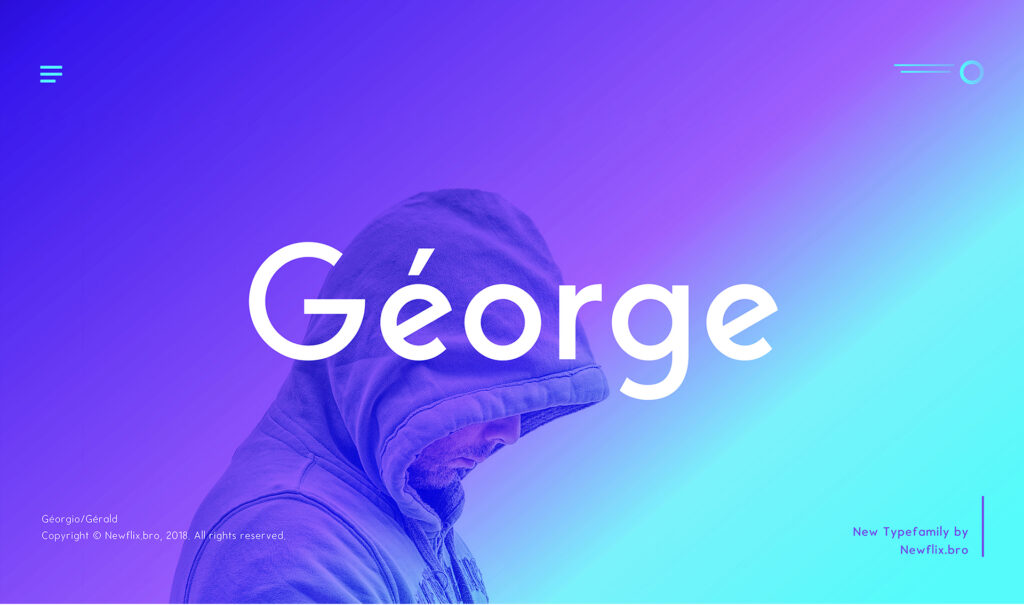
Introducing George Font: The Epitome of Elegance and Modernity
In the realm of typography, a font can make or break the visual appeal of a design. With the plethora of fonts available, it can be daunting to find the perfect one that exudes elegance, sophistication, and modernity. However, look no further than George Font, a stunning sans serif font family that is sure to elevate your designs to new heights.
What is George Font?
George Font is an elegant and contemporary sans serif font family comprising six fonts. Designed with clean and stylized modern geometry, George boasts a harmonious appearance that is perfect for both texts and headlines. Its sleek lines, precise curves, and balanced proportions make it an ideal choice for designers seeking a font that embodies sophistication and poise.
Key Features of George Font
- Contemporary Design: George Font features a modern sans serif design that is perfect for designs that require a fresh and stylish look.
- Clean and Stylized Geometry: The font’s clean lines, precise curves, and balanced proportions create a harmonious appearance that is pleasing to the eye.
- 6 Font Variations: George Font comes in six different font variations, providing designers with a range of options to suit their design needs.
- Elegant and Sophisticated: The font’s elegant and sophisticated design makes it perfect for high-end designs, such as luxury brands, magazines, and editorial designs.
The Design Philosophy Behind George Font
The design of George Font is rooted in the principles of modern geometry. The font’s creator aimed to craft a font that would embody the essence of modernity while exuding elegance and sophistication. The result is a font that is both visually striking and highly legible.
The design process involved a meticulous attention to detail, with a focus on creating a font that would be versatile and adaptable. The font’s clean lines, precise curves, and balanced proportions were carefully crafted to ensure that George Font would be perfect for a wide range of design applications.
What Makes George Font So Versatile?
George Font’s versatility can be attributed to its:
- Clean Design: The font’s clean design makes it perfect for use in a variety of design applications, from digital media to print materials.
- Legibility: George Font’s high legibility ensures that it can be used for both body text and headlines, making it a great choice for designers who want a font that can do it all.
- Flexibility: The font’s six variations provide designers with a range of options to suit their design needs, from bold and attention-grabbing to elegant and refined.
How to Use George Font in Your Designs
George Font is an incredibly versatile font that can be used in a wide range of design applications. Here are a few ideas to get you started:
- Branding and Identity: Use George Font to create a sophisticated and elegant brand identity that exudes luxury and refinement.
- Magazines and Editorials: The font’s high legibility and clean design make it perfect for use in magazines and editorials.
- Web Design: George Font’s clean design and modern aesthetic make it an excellent choice for web design, particularly for designs that require a fresh and stylish look.
- Print Materials: The font’s versatility and legibility make it suitable for use in a range of print materials, from brochures to business cards.
Tips for Pairing George Font with Other Fonts
Pairing George Font with other fonts can add visual interest and create a unique design. Here are a few tips to keep in mind:
- Contrast with Serif Fonts: Pair George Font with a serif font to create a striking contrast between modernity and tradition.
- Match with Similar Fonts: Pair George Font with similar sans serif fonts to create a cohesive and harmonious design.
- Experiment with Font Sizes: Experiment with different font sizes to create visual hierarchy and add depth to your design.
George Font is an exceptional sans serif font family that embodies elegance, sophistication, and modernity. With its clean and stylized geometry, six font variations, and high legibility, George Font is the perfect choice for designers seeking a font that can elevate their designs to new heights. Whether you’re designing a luxury brand, magazine, or editorial, George Font is sure to impress.